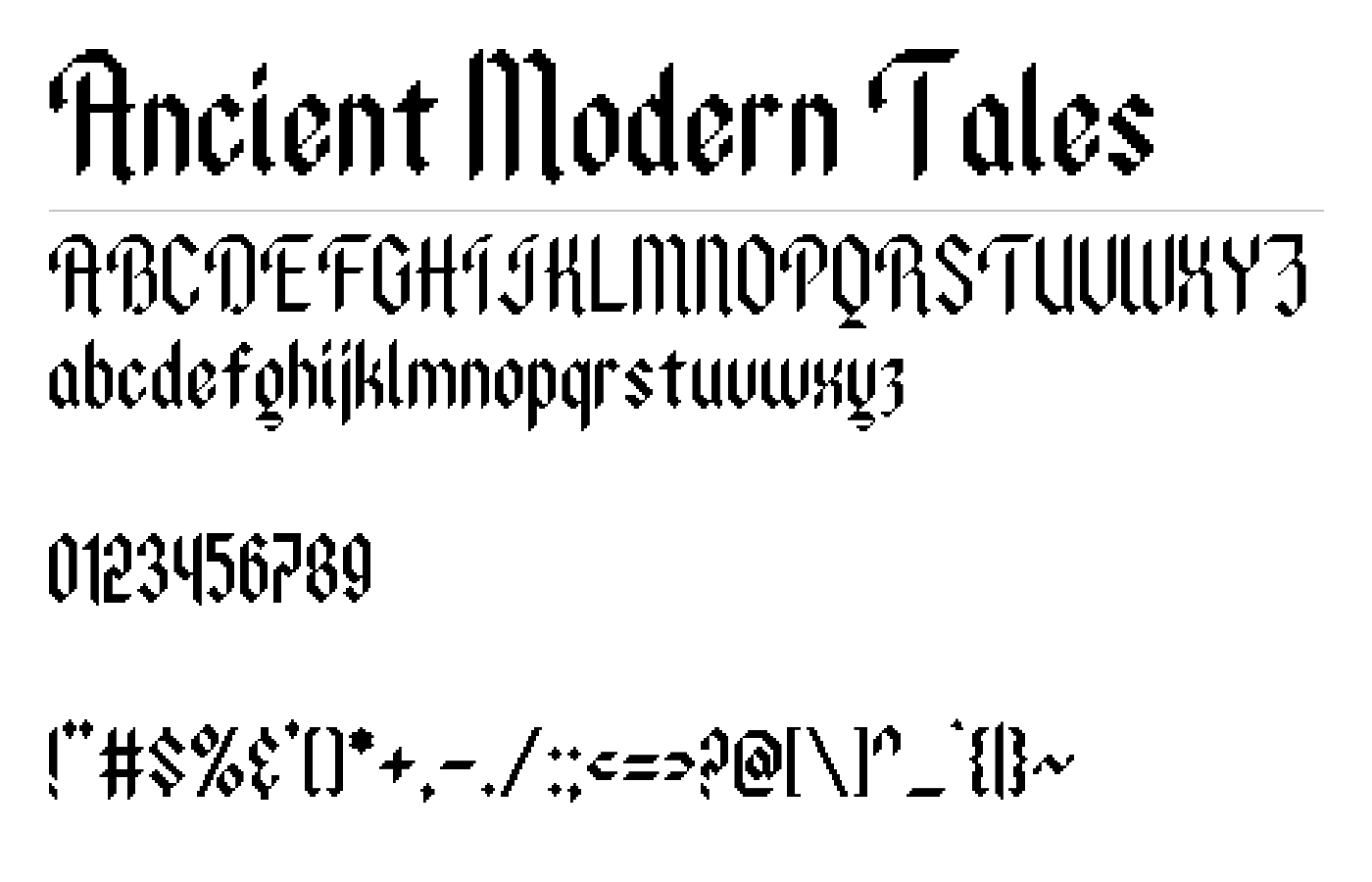
Ancient Modern Tales is a distinctive blackletter-style font that combines historical gothic elements with a modern sharpness, featuring tall, narrow letters with pointed edges and strong vertical strokes. Its bold weight and condensed width make it ideal for creating dramatic, vintage-inspired designs that capture attention, perfect for headlines, logos, and branding that seek a classic yet edgy medieval vibe. This font works best in contexts where a sense of tradition, mystery, or old-world charm is desired, such as in fantasy projects, event posters, or decorative typography.
Ancient Modern Tales Font
About Ancient Modern Tales Font